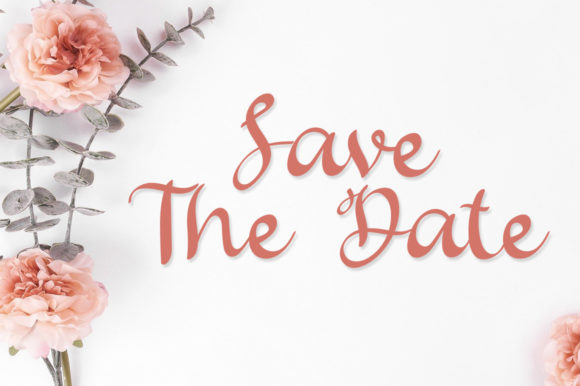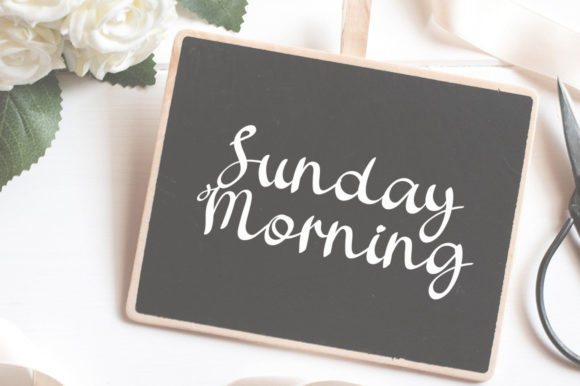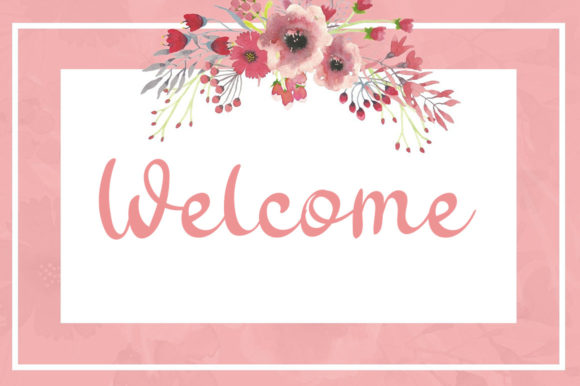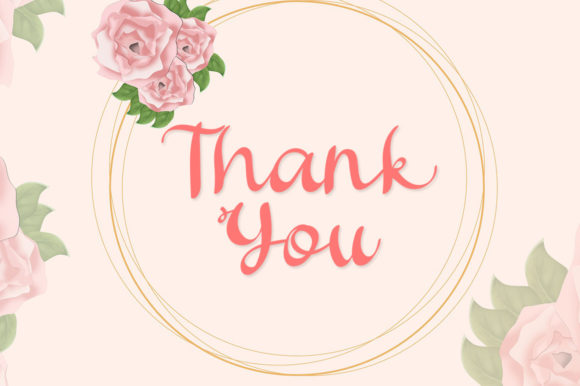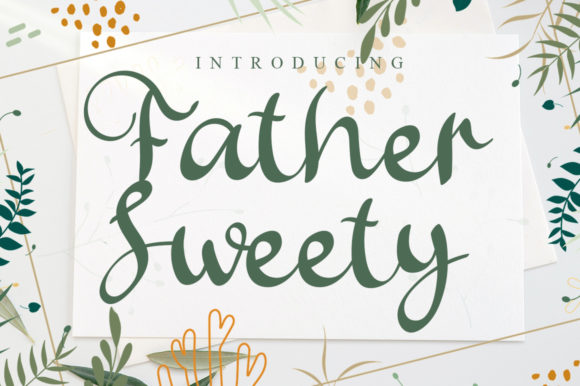
Introducing Father Sweety Font: Elevate Your Designs with Sophistication and Elegance
In the world of typography, fonts play a crucial role in conveying the tone and personality of a design. For designers and crafters seeking to add a touch of sophistication and elegance to their projects, Father Sweety Font is an exceptional choice. This chic, refined script font is designed to emanate luxury and poise, making it perfect for a wide range of applications.
The Essence of Father Sweety Font
Father Sweety Font is a stylish script typeface that boasts a high level of refinement. Its elegant strokes and fluid connections create a sense of movement and harmony, adding a touch of class to any design. The font’s sophisticated appearance makes it an ideal choice for projects that require a level of luxury and poise, such as high-end branding, wedding invitations, and upscale advertising campaigns.
Key Features of Father Sweety Font
So, what sets Father Sweety Font apart from other script fonts? Here are some of its key features:
- Stylish Alternates: Father Sweety Font offers a range of stylish alternates that allow designers to add variety and uniqueness to their text. These alternates can be used to create a sense of hierarchy, emphasize certain words or phrases, and add visual interest to a design.
- Ligatures: The font also features a set of ligatures, which are special characters that combine two or more letters to create a single, flowing unit. Ligatures add a level of sophistication and elegance to text, making it perfect for high-end designs.
- Elegant Strokes: Father Sweety Font’s elegant strokes and fluid connections create a sense of movement and harmony, adding a touch of class to any design.
Father Sweety Font is an incredibly versatile typeface that can be used for a wide range of projects, including:
- Branding and Logo Design: The font’s sophisticated appearance makes it perfect for high-end branding and logo design projects.
- Wedding Invitations and Stationery: Father Sweety Font’s elegant strokes and ligatures make it an ideal choice for wedding invitations, stationery, and other formal events.
- Advertising and Marketing: The font’s luxurious appearance makes it perfect for upscale advertising campaigns and marketing materials.
- Packaging and Product Design: Father Sweety Font can be used to add a touch of sophistication and elegance to packaging and product design projects.
Why Choose Father Sweety Font?
With so many fonts available, why choose Father Sweety Font? Here are just a few reasons:
- Unique and Elegant: Father Sweety Font offers a unique and elegant solution for designers seeking to add a touch of sophistication to their projects.
- Highly Versatile: The font’s versatility makes it perfect for a wide range of projects, from branding and logo design to wedding invitations and advertising.
In conclusion, Father Sweety Font is a chic, refined script font that emanates sophistication and elegance. Its stylish alternates and ligatures make it the perfect match for any project that requires a level of luxury and poise. With its versatility, elegance, and ease of use, Father Sweety Font is an exceptional choice for designers and crafters seeking to elevate their designs.
Whether you’re working on a high-end branding project, designing wedding invitations, or creating upscale advertising campaigns, Father Sweety Font is sure to impress. So why not give it a try and experience the elegance and sophistication it has to offer?